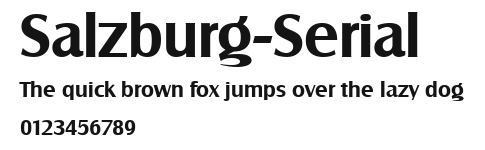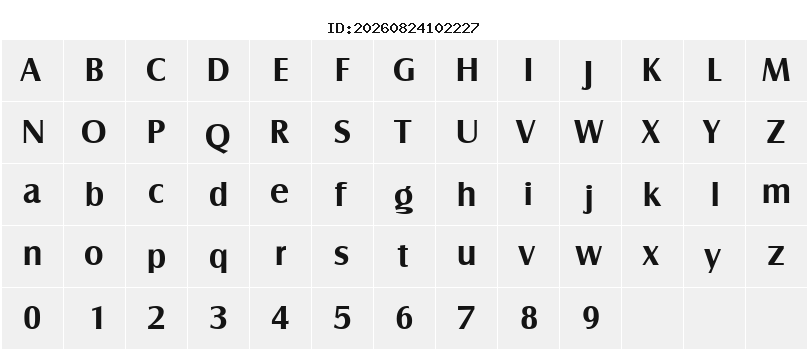
• Font Name: Salzburg-Serial
• Full Font Name: Salzburg-Serial-Bold
About Salzburg-Serial.ttf
Salzburg-Serial.ttf is a modern, elegant sans-serif font designed for ultimate readability and visual harmony. Perfect for branding, headlines, web design, and print materials.